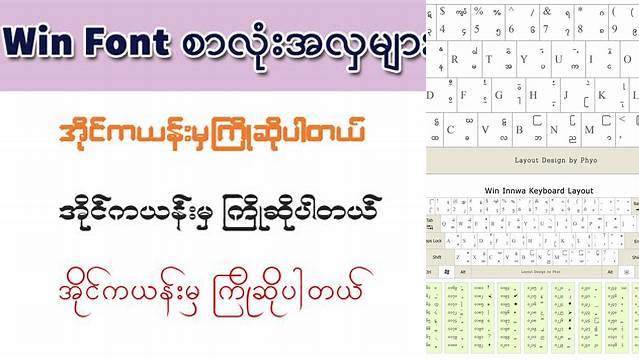
What is Win Innwa Font?
The Win Innwa font is a widely used typeface for displaying Myanmar (Burmese) script on computers. It's known for its clear and readable design, making it a popular choice for various applications, from word processing and graphic design to web development. This font allows users to accurately represent the complex characters of the Myanmar language, ensuring effective communication in digital environments. The availability of Win Innwa has significantly contributed to the accessibility of Myanmar script in the digital world.
Why Use Win Innwa Font?
Using the Win Innwa font is crucial for anyone working with the Myanmar language on a computer. Without a proper font like Win Innwa, Myanmar text may appear as boxes or other unreadable characters. This font ensures that your documents, websites, and other digital content display Myanmar script correctly, allowing you to communicate effectively with Myanmar speakers. The clarity and legibility of Win Innwa also enhance the reading experience, making it a preferred choice for both creators and consumers of Myanmar content.
Benefits of Win Innwa Font
There are many benefits to using the Win Innwa font. It ensures accurate display of Myanmar characters, is widely compatible with various applications, and is generally free to download and use. Its clear and legible design enhances readability, making it easier to create and consume Myanmar content. Additionally, the widespread use of Win Innwa means that documents and websites created with this font are likely to be displayed correctly on other computers, ensuring consistent communication across different platforms.